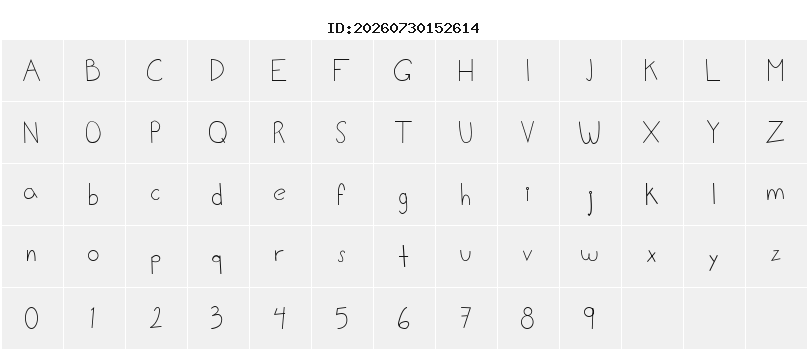
lalo Preview
• Font Name: lalo
• Full Font Name: lalo
• PostScript Name: lalo
• Designer: Eduardo Padilla Aguilar
• Manufacturer: Eduardo Padilla Aguilar
About lalo.ttf
lalo.ttf is a modern, elegant sans-serif font designed for ultimate readability and visual harmony. Perfect for branding, headlines, web design, and print materials.